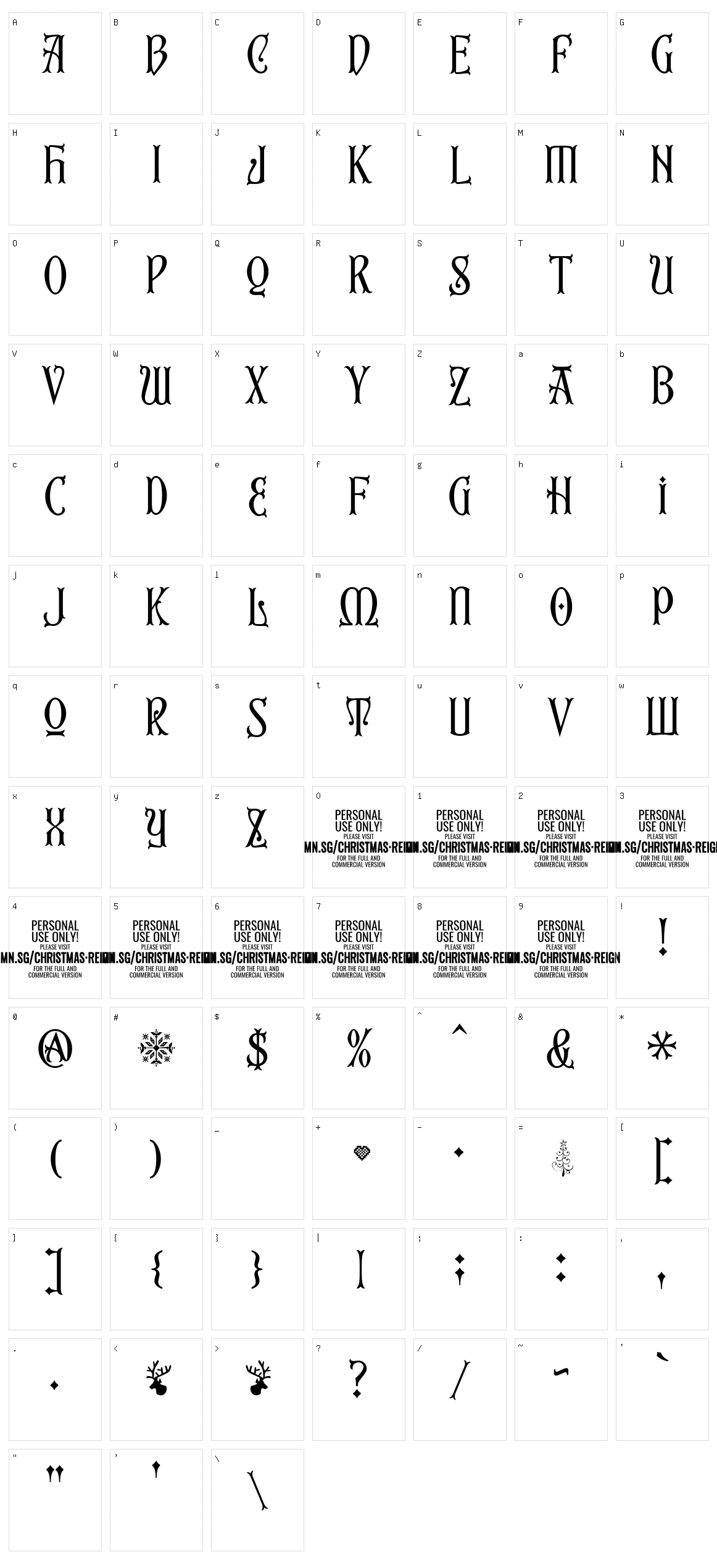
Christmas Reign is a very decorative festive typeface.
It is a professional typeface, containing advanced but easy-to-use
OpenType functions, such as contextual alternates and ligatures.
Try it and see how each letter pair behaves differently, magically
creating new ways to connect as the text goes on.
Use it for a stand-alone logotype, or for a longer text which requires
that extra touch of magic and mystery.
Each letter has more than 10 alternate variations, making it truly
adaptable with hundreds of possible ways to write any word.
Very easy to use functions!
Use characters + < > * # to create Christmas symbols.
Example: +Merry Christmas+
Use ( ) [ ] to make a decorative border around any word.
Underline _ makes a space with borders.
Example: (Santa_Claus)
The typeface has very extensive lingual support, and works for all
European languages, including Cyrillic and Greek.
It also contains numbers and all characters you will ever need.